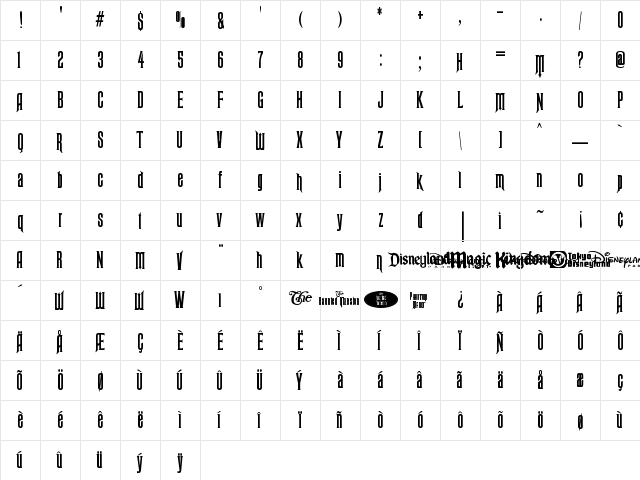
Ravenscroft Regular
Design Context for Ravenscroft Typeface
Ravenscroft is a composed and adaptable typeface that performs quietly and consistently across a wide range of design contexts.